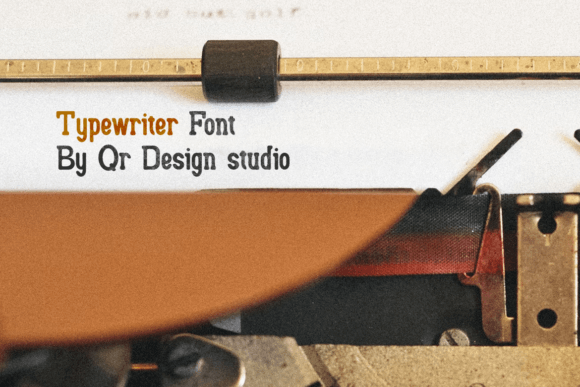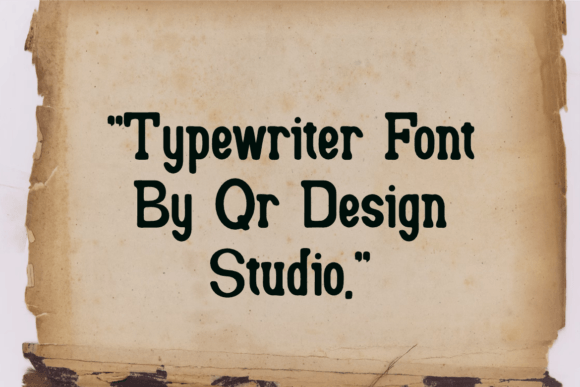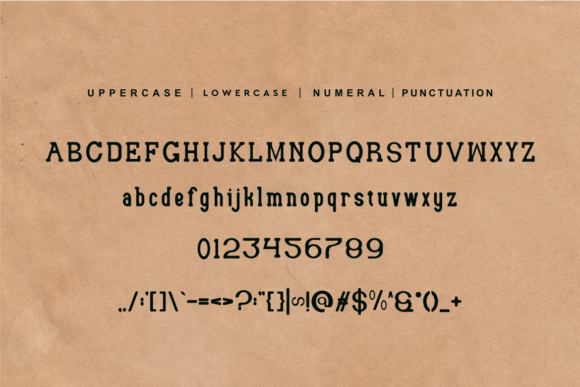
Introduction to Highclass Typewriter Font
Have you ever found yourself rummaging through your grandfather’s old trunk, unearthing a dusty typewriter that once helped him craft stories and poems? The tactile experience of placing your fingers on the keys, feeling the weight of each letter as it clicks onto the page, is a sensation that sparks creativity and nostalgia. That’s what the Highclass Typewriter Font aims to capture – the essence of a bygone era, when words were written with care and intention.
As a valuable design resource, Highclass Typewriter Font offers a unique blend of authenticity and sophistication, making it an ideal choice for branding projects, logos, and even sports teams. With its transparent background and high-quality design, this font is perfect for designers seeking a creative solution that stands out from the crowd.
Key Features of Highclass Typewriter Font
- Unique, high-quality typewriter font design suitable for creative projects and design resources.
- Supports a wide range of languages, making it a versatile design resource for international projects.
- Perfect for creating vintage, retro, or distressed effects in your design work.
Honest Review: Highclass Typewriter Font
Upon closer inspection, I was pleased to find that the font features a transparent background, making it easy to integrate into creative projects. The high quality of the font is evident in its crisp lines and well-defined characters.
- Unique aesthetic that sets it apart from other fonts
- Transparent background for easy integration into designs
- Limited character set may not be suitable for extensive text-based projects
- May not be ideal for use in large-scale headings or titles
Overall, I was impressed with the Highclass Typewriter Font’s unique design and high quality. While it may have some limitations, it’s a great addition to any designer’s toolkit, especially for creative projects that require a touch of nostalgia.
Introduction to Highclass Typewriter Font
The Highclass Typewriter Font is a high-quality design resource perfect for creative projects that require a touch of nostalgia and elegance. This font is ideal for designers looking to add a unique and sophisticated element to their designs.
Tips for Getting the Most Out of Highclass Typewriter Font
For the best results, use the Highclass Typewriter Font on a transparent background to create a beautiful, high-contrast design. Experiment with different font sizes and styles to add depth and interest to your design.
Common Use Cases for Highclass Typewriter Font
This font is perfect for a variety of creative projects, including:
- Wedding invitations
- Business cards
- Menus
- Posters
Does the Highclass Typewriter Font have a transparent background?
No, the Highclass Typewriter Font does not have a transparent background. It’s a solid font that can be used on a variety of backgrounds, including images and videos. If you need a font with a transparent background, you may need to use a different design resource or adjust the font settings in your design software.